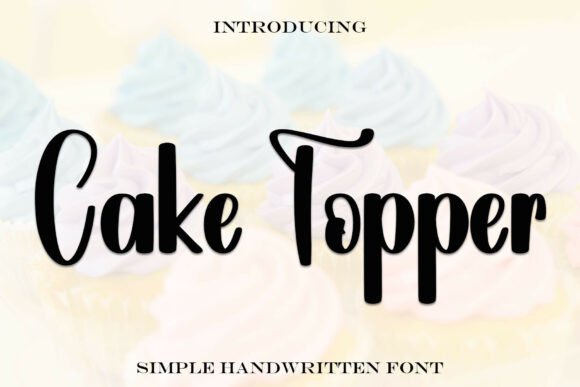
The Perfect Touch to Elevate Your Designs
Have you ever been in the middle of a creative project, staring at a blank canvas or a blank page, and suddenly, the perfect idea strikes you? It’s that moment of clarity when everything comes together, and you know exactly how to bring your vision to life. For many designers, it’s all about finding that special something that sets their work apart. And that’s where the Cake Topper Font comes in – a beautiful, handwritten font that adds a touch of elegance and sophistication to any design project.
This versatile font is inspired by timeless classic calligraphy and has a contemporary atmosphere that’s sure to make your designs stand out. Whether you’re working on a wedding invitation, a logo, or a social media graphic, the Cake Topper Font is the perfect addition to elevate your work to the next level. As a designer, you know how valuable it is to have the right tools at your disposal, and the Cake Topper Font is definitely one to add to your collection.
Cake Topper Font Key Features
- Font Style: Whimsical, cursive script with a touch of elegance and playfulness, perfect for cake toppers, invitations, and other decorative designs.
- Unique Characteristics: Includes a range of swashes, flourishes, and ornaments to add a personal touch to designs, making each cake topper unique and special.
Cake Topper Font Review
Overall, I’m impressed with the Cake Topper Font. ✨ Its playful, whimsical feel makes it perfect for creating eye-catching desserts and treats. The font is highly customizable, allowing you to adjust the color, size, and style to fit your specific design needs.
- Playful, whimsical feel
- Perfect for desserts and treats
However, there are a few limitations to consider: ⚠️ The font is not as versatile as some other options, and it may not be suitable for more formal or professional designs. Additionally, the font may be a bit too “sweet” for some tastes, and may not appeal to those looking for a more modern or edgy feel.
- Not as versatile as other options
- May not be suitable for formal or professional designs
- May be too “sweet” for some tastes
Overall, I would recommend the Cake Topper Font for designers looking to add a touch of whimsy and fun to their designs. While it may have its limitations, it’s a great choice for desserts, treats, and other playful designs.
Tips for Getting the Most Out of Cake Topper Font
For a professional look, pair the Cake Topper Font with bold or cursive fonts.
Common Use Cases for Cake Topper Font
The Cake Topper Font is perfect for:
- Custom cake toppers and edible images.
- Party decorations and signage.
Alternatives to Cake Topper Font for Designers
Great Vibes is a beautiful, elegant script font perfect for adding a touch of sophistication to designs. It’s ideal for use in wedding invitations, branding, and other high-end projects where a luxurious feel is desired.
Compared to Cake Topper Font, Great Vibes has a more refined and polished look, making it suitable for a wider range of applications.
Lobster is a fun, casual script font great for adding a playful touch to designs. It’s perfect for use in advertising, social media graphics, and other projects where a lighthearted feel is desired.
Compared to Cake Topper Font, Lobster has a more relaxed and casual vibe, making it ideal for projects that require a friendly and approachable tone.
Alex Brush is a elegant, handwritten font perfect for adding a touch of whimsy to designs. It’s ideal for use in branding, packaging, and other projects where a unique and personal feel is desired.